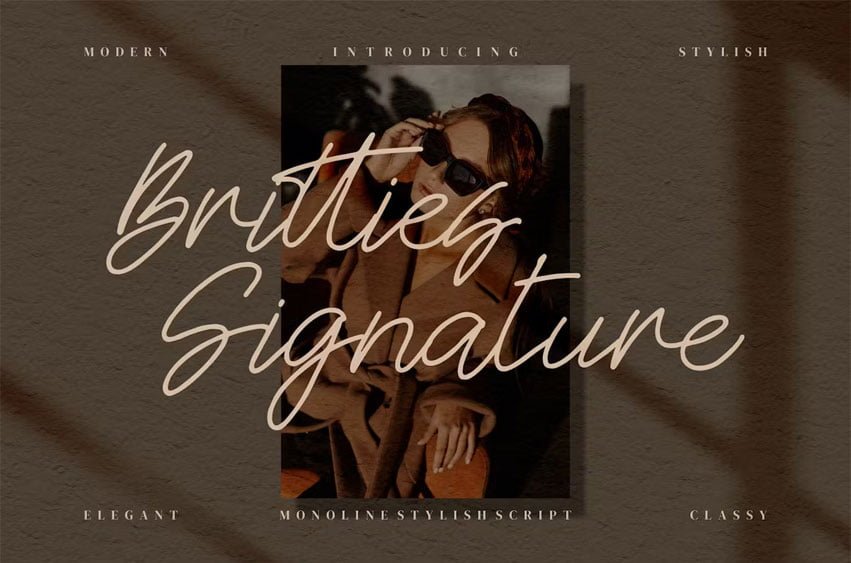
Britties Signature Font is a premium Monoline Stylish Script Font, suitable for any projects such as logos, branding projects, homeware designs, product packaging, mugs, quotes, posters, shopping bags, t-shirts, book covers, name card, invitation cards, greeting cards, label, photography, watermark, special events, and all your other luxury projects that need a premium signature taste.
Ligature, Alternate & Swashes